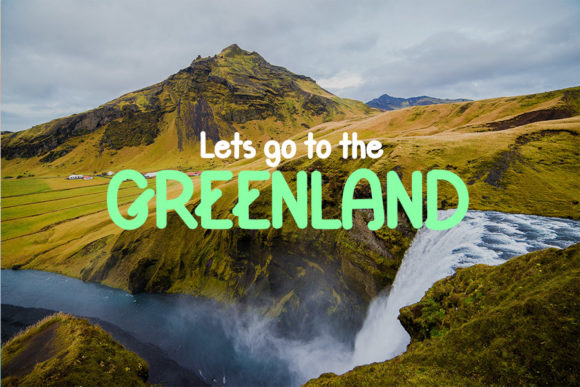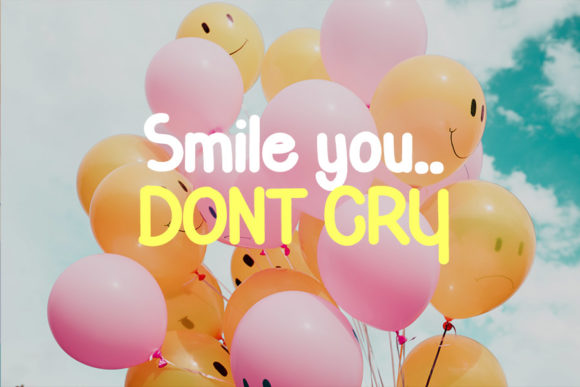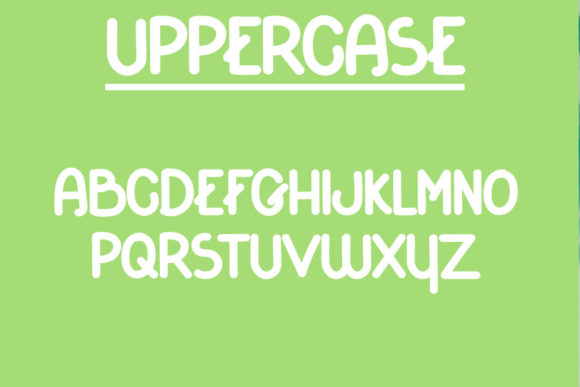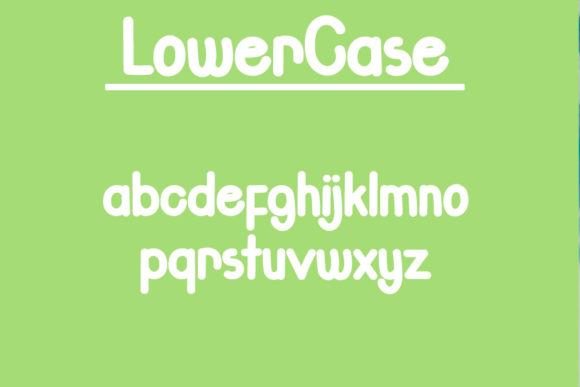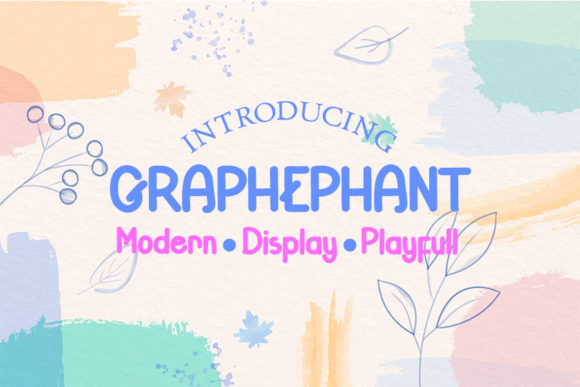
Graphephant Font: Elevate Your Designs with a Simple yet Trendy Handwritten Style
In the world of typography, fonts play a crucial role in conveying messages, evoking emotions, and setting the tone for a brand or project. For designers, crafters, and DIY enthusiasts, finding the perfect font can be a daunting task. However, if you’re looking for a simple yet trendy handwritten font that can add a touch of personality to your projects, look no further than Graphephant Font. In this article, we’ll dive into the world of Graphephant Font, exploring its features, benefits, and uses.
What is Graphephant Font?
Graphephant Font is a modern, handwritten font designed to add a personal touch to your projects. With its clean lines, simple shapes, and flowing curves, this font exudes a sense of elegance and sophistication. Whether you’re working on a branding project, crafting a handmade card, or creating a social media graphic, Graphephant Font is the perfect choice.
Key Features of Graphephant Font
• Simple and Trendy: Graphephant Font boasts a simple, yet trendy design that’s perfect for modern projects.
• Handwritten Style: This font features a beautiful, handwritten style that adds a personal touch to your work.
• Clean Lines: The clean lines and simple shapes of Graphephant Font make it easy to read and versatile for various applications.
• Elegant and Sophisticated: The flowing curves and elegant design of this font make it perfect for projects that require a touch of sophistication.
Benefits of Using Graphephant Font
So, why choose Graphephant Font for your projects? Here are just a few benefits of using this amazing font:
• Easy to Read: The clean design and simple shapes of Graphephant Font make it easy to read, even at small sizes.
• Versatile: This font is perfect for a wide range of projects, from branding and advertising to crafting and DIY.
• Time-Saving: With Graphephant Font, you can create professional-looking projects in no time, thanks to its easy-to-use design.
• Unique: This font is sure to set your project apart from the crowd, thanks to its unique, handwritten style.
Uses of Graphephant Font
Graphephant Font is perfect for a wide range of projects, including:
• Branding and Advertising: Use Graphephant Font to create professional-looking logos, business cards, and marketing materials.
• Crafting and DIY: Add a personal touch to your handmade cards, scrapbooking projects, and other DIY crafts.
• Social Media Graphics: Use Graphephant Font to create eye-catching social media graphics, including Facebook posts, Instagram stories, and Twitter headers.
• Wedding and Event Planning: This font is perfect for creating beautiful wedding invitations, party decorations, and other event materials.
In conclusion, Graphephant Font is a simple yet trendy handwritten font that’s perfect for designers, crafters, and DIY enthusiasts. With its clean lines, simple shapes, and flowing curves, this font exudes elegance and sophistication. Whether you’re working on a branding project, crafting a handmade card, or creating a social media graphic, Graphephant Font is the perfect choice. So why wait? Download Graphephant Font today and add a touch of personality to your projects!